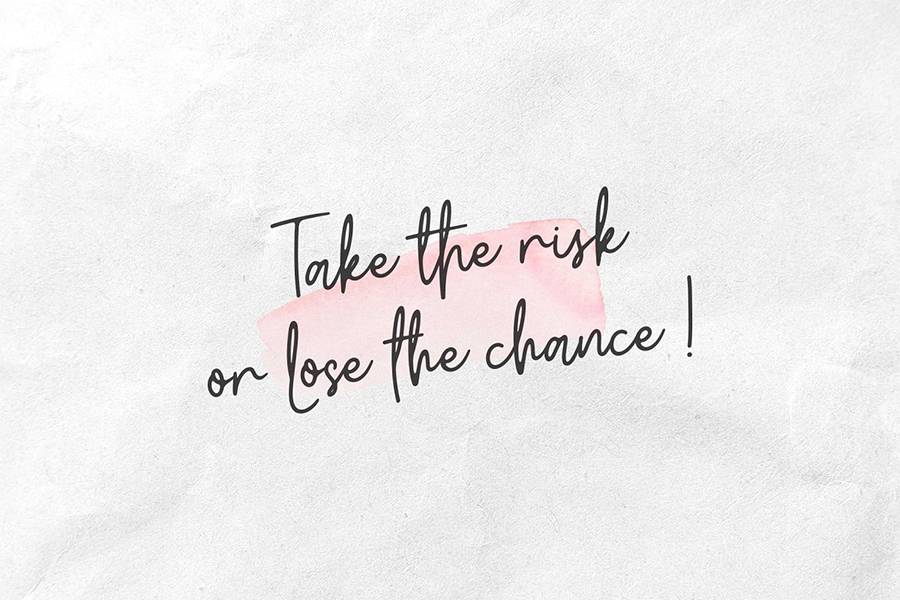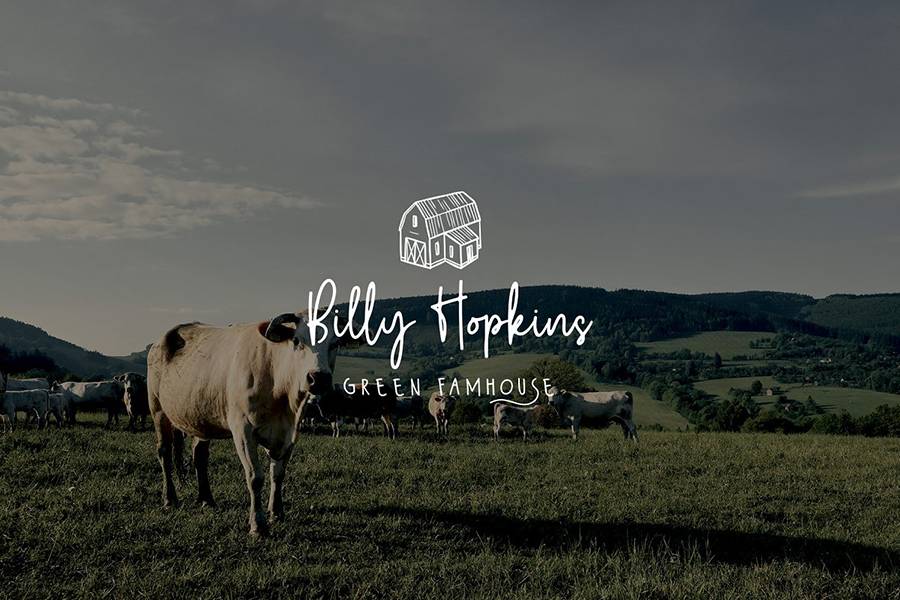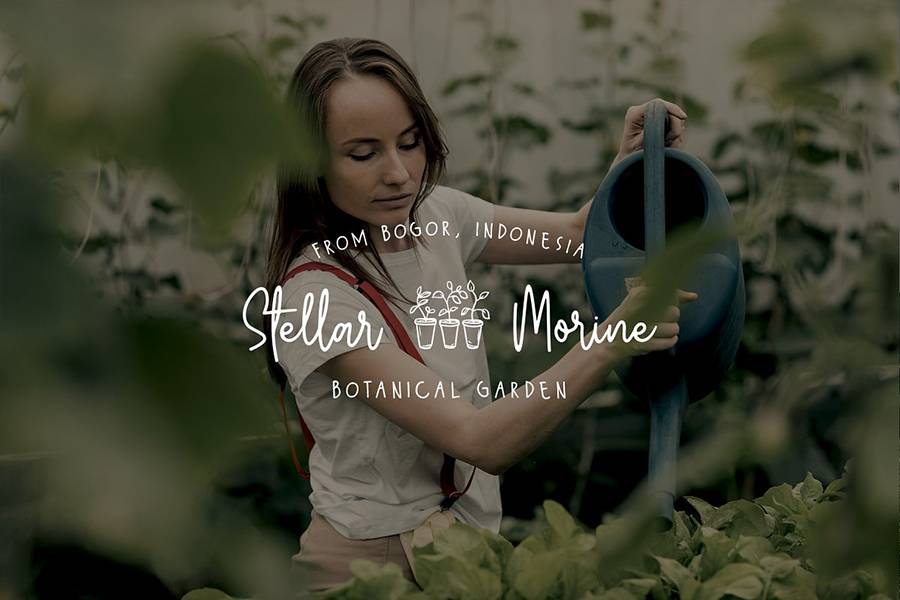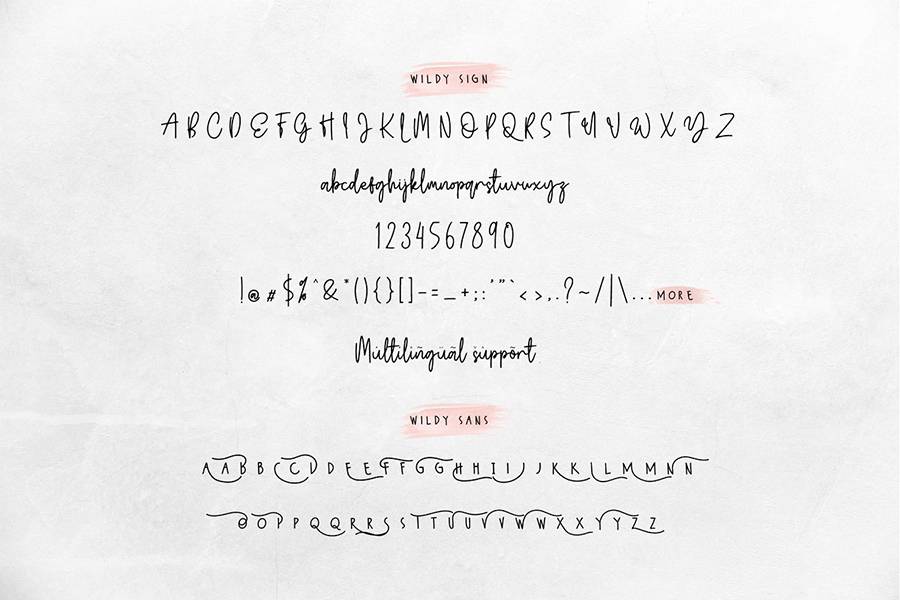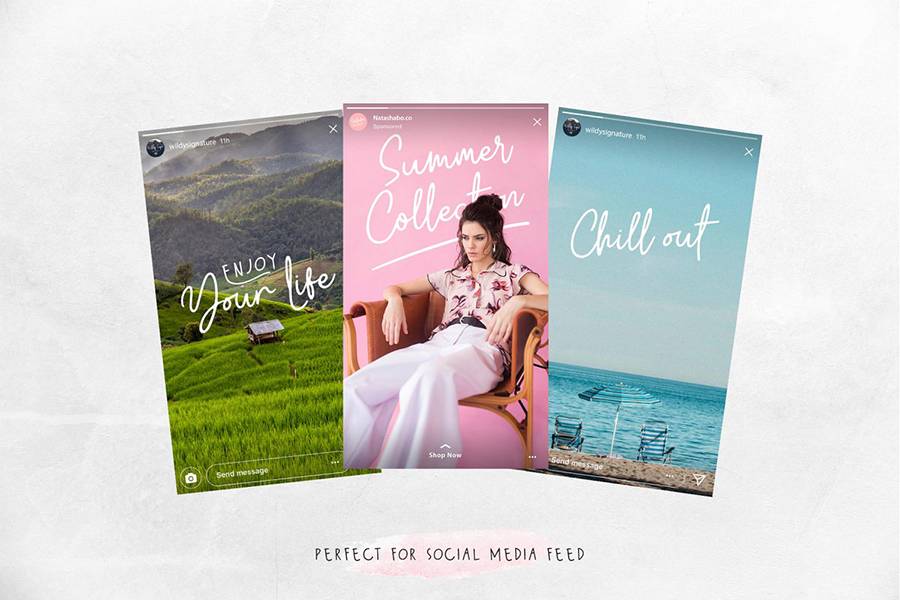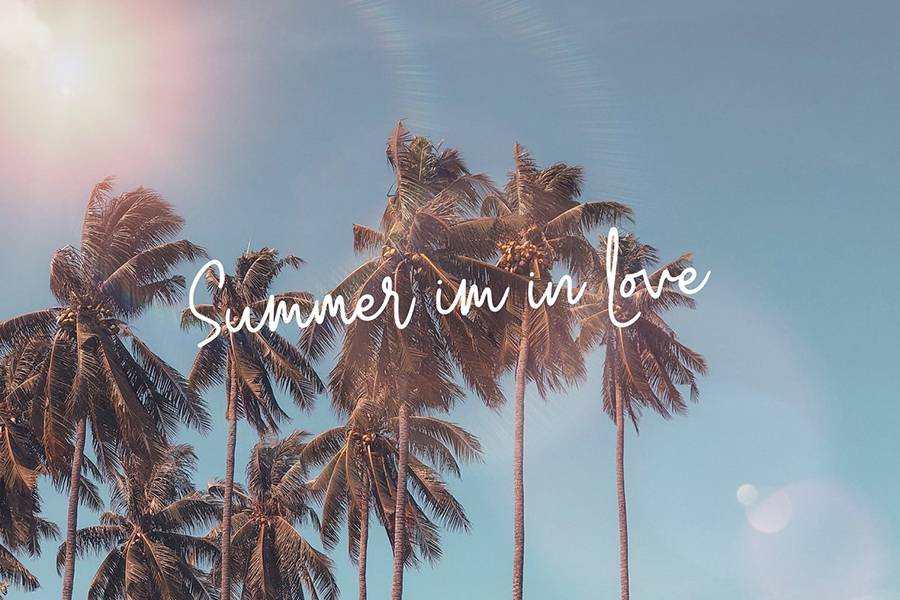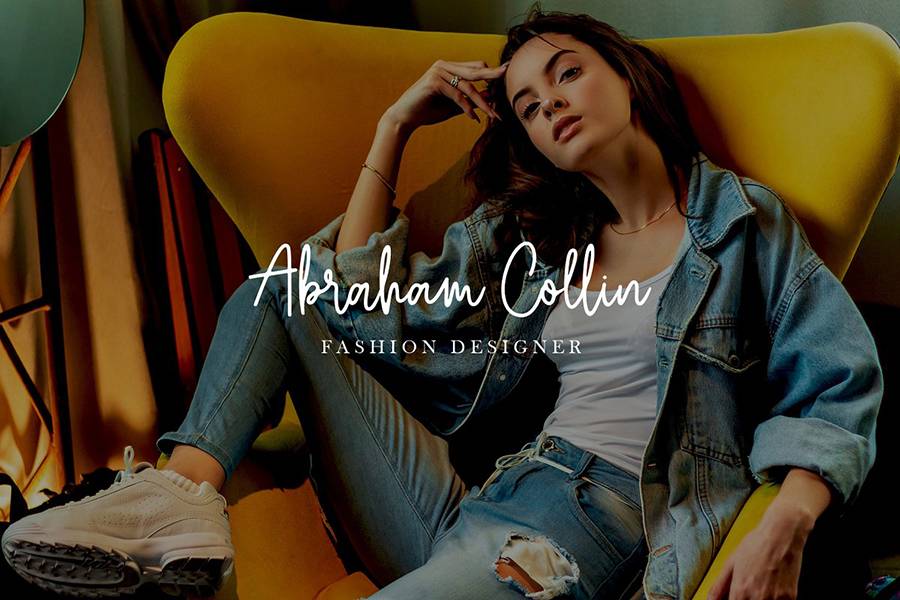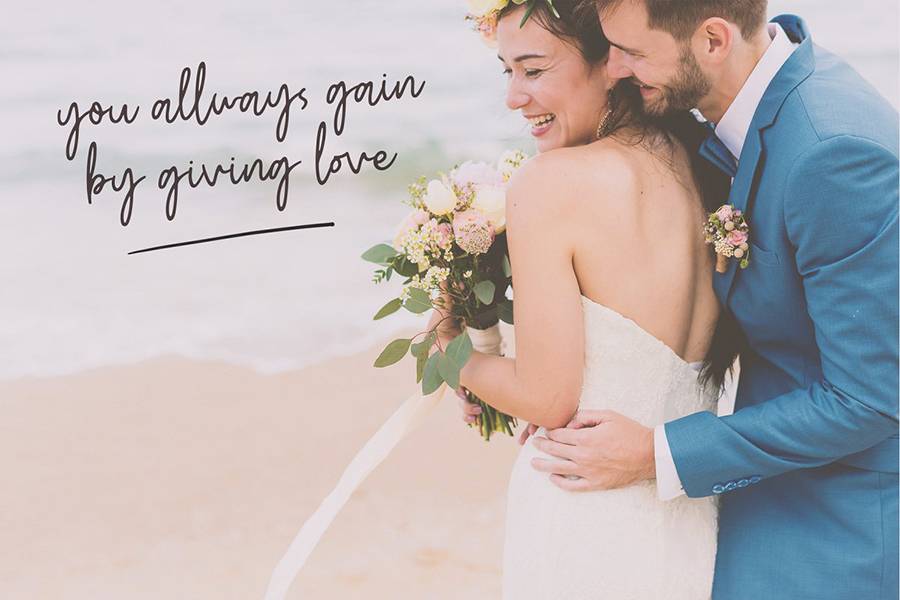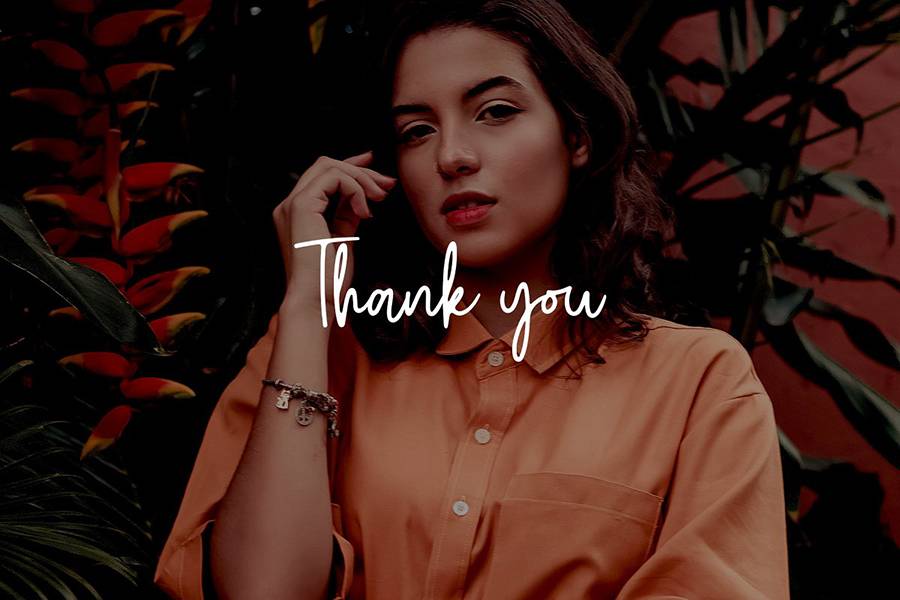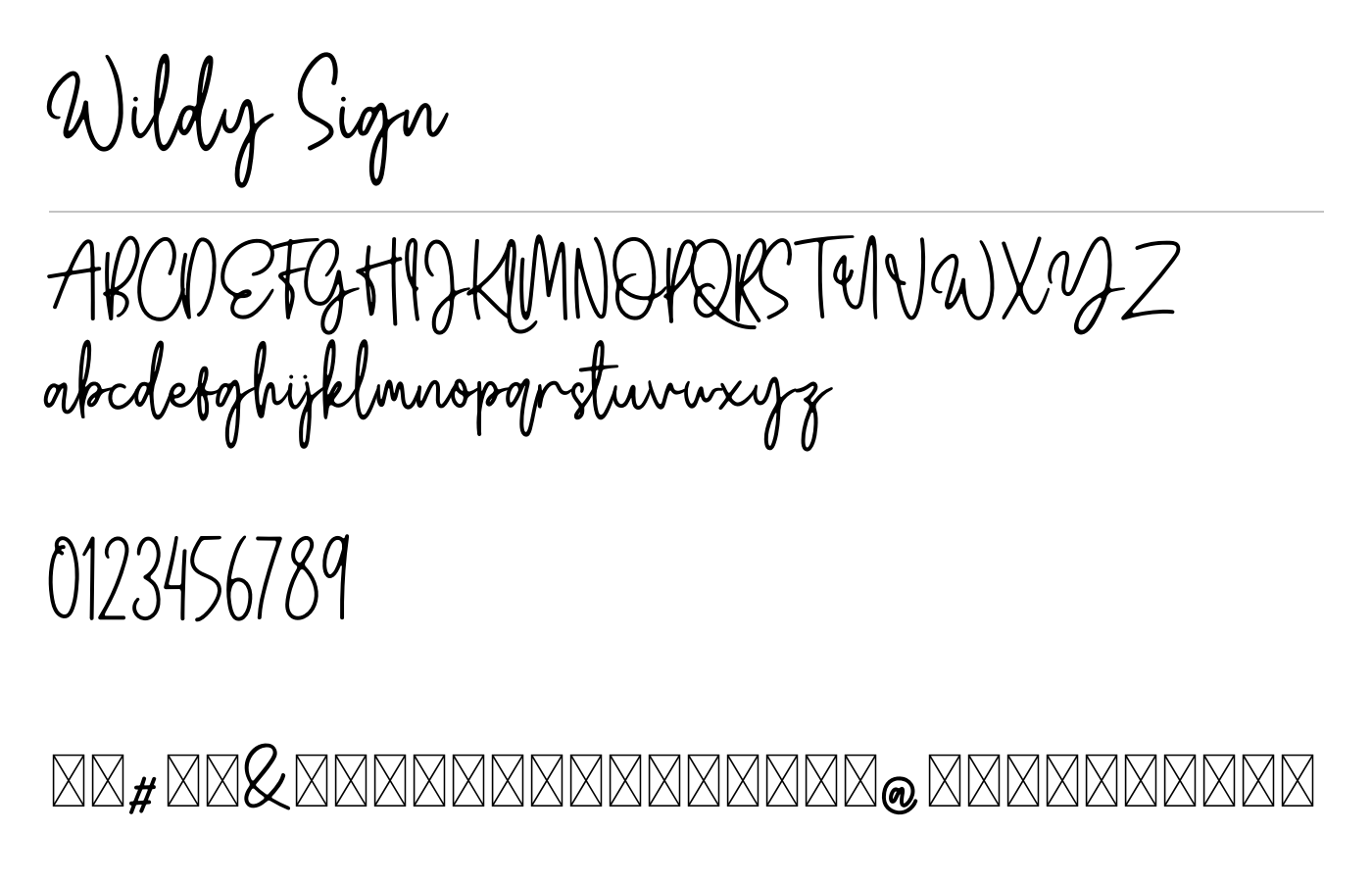
Wildy Sign Signature Font is a casual, handwritten script with a playful and organic feel, characterized by its tall, narrow letterforms and smooth, slightly irregular strokes. Its light weight and airy spacing make it perfect for adding a personal, authentic touch to branding, invitations, and social media graphics where a friendly, approachable style is desired. This font works especially well in designs that seek to convey creativity and warmth with a modern signature aesthetic.
Wildy Sign Signature Font
About Wildy Sign Signature Font
| Font family | Wildy Sign Signature Font |
| Designer | Andika Setiawan |